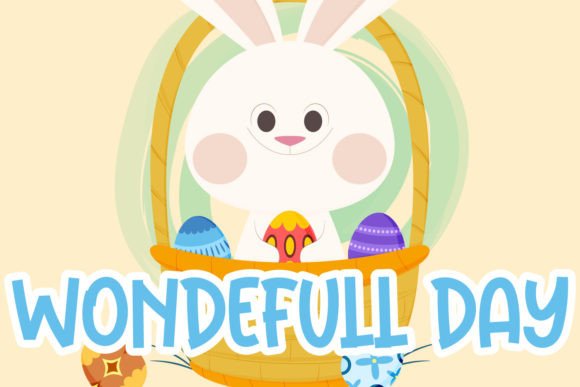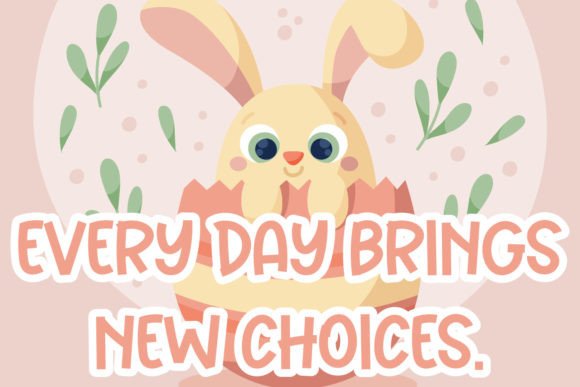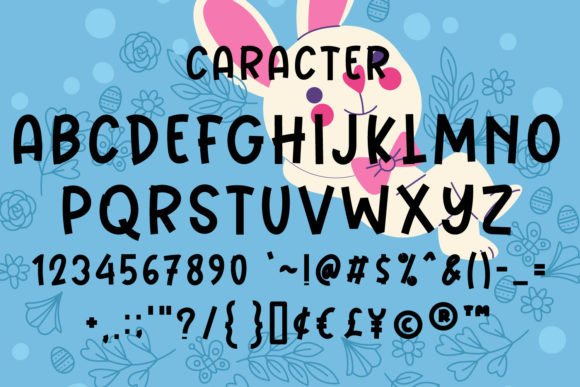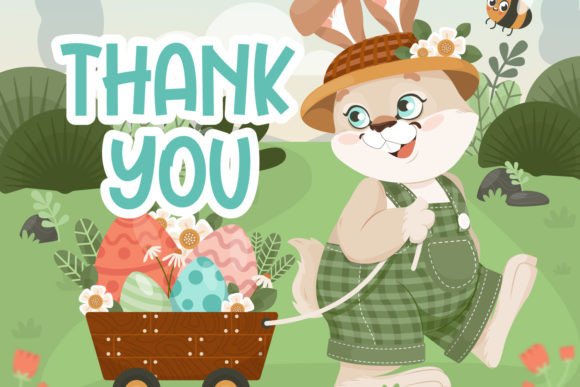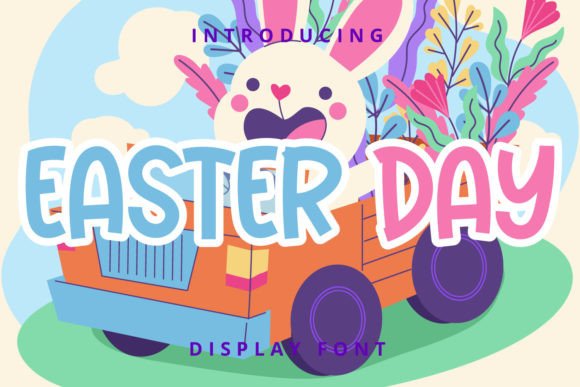
Easter Day Font: The Perfect Addition to Your Easter and Spring Designs
Easter Day is a brilliant, fun, and cute display font that is sure to add a touch of excitement to your designs. With its playful and cheerful vibe, it’s perfect for children-themed designs, Easter or spring projects, and especially when combined with bright colors. In this article, we’ll take a closer look at the Easter Day font and explore its features, uses, and benefits for designers and crafters.
What is Easter Day Font?
Easter Day font is a display font designed specifically for Easter and spring-themed projects. Its unique and quirky style makes it stand out from other fonts, and its friendly and approachable feel makes it perfect for designs aimed at children or families. The font features rounded edges, bouncy curves, and a carefree spirit that’s sure to capture the essence of Easter and spring.
Key Features of Easter Day Font
- Fun and playful design: Easter Day font is designed to be fun and playful, making it perfect for Easter and spring-themed projects.
- Cute and cheerful vibe: The font’s cute and cheerful vibe makes it ideal for children-themed designs and projects.
- Rounded edges and bouncy curves: The font’s rounded edges and bouncy curves give it a friendly and approachable feel.
- Perfect for bright colors: Easter Day font looks especially great when paired with bright colors, making it perfect for designs that require a pop of color.
Uses of Easter Day Font
Easter Day font is a versatile font that can be used for a variety of design projects, including:
- Easter and spring-themed designs: The font is perfect for Easter and spring-themed designs, such as Easter egg designs, spring posters, and holiday cards.
- Children-themed designs: The font’s playful and cheerful vibe makes it ideal for children-themed designs, such as kids’ party invitations, children’s book illustrations, and nursery decor.
- DIY projects: Easter Day font is also perfect for DIY projects, such as crafting, scrapbooking, and paper crafting.
Benefits of Using Easter Day Font
Using Easter Day font in your designs offers several benefits, including:
- Instant recognition: The font’s unique and quirky style makes it instantly recognizable and memorable.
- Emotional connection: The font’s friendly and approachable feel helps create an emotional connection with your audience, especially children and families.
- Versatility: Easter Day font is a versatile font that can be used for a variety of design projects, from Easter and spring-themed designs to children-themed designs and DIY projects.
Tips for Using Easter Day Font
Here are some tips for using Easter Day font in your designs:
- Pair with bright colors: Easter Day font looks especially great when paired with bright colors, so don’t be afraid to experiment with different color combinations.
- Use for headlines and titles: The font’s playful and cheerful vibe makes it perfect for headlines and titles, so use it to add a touch of excitement to your designs.
- Experiment with different sizes: Easter Day font can be used at different sizes, from large display fonts to smaller body text, so experiment with different sizes to find the one that works best for your design.
Easter Day font is a brilliant, fun, and cute display font that’s perfect for Easter and spring-themed designs, children-themed designs, and DIY projects. With its unique and quirky style, friendly and approachable feel, and versatility, it’s a great addition to any designer’s toolkit. Whether you’re a designer, crafter, or DIY enthusiast, Easter Day font is sure to bring a touch of excitement and joy to your designs.